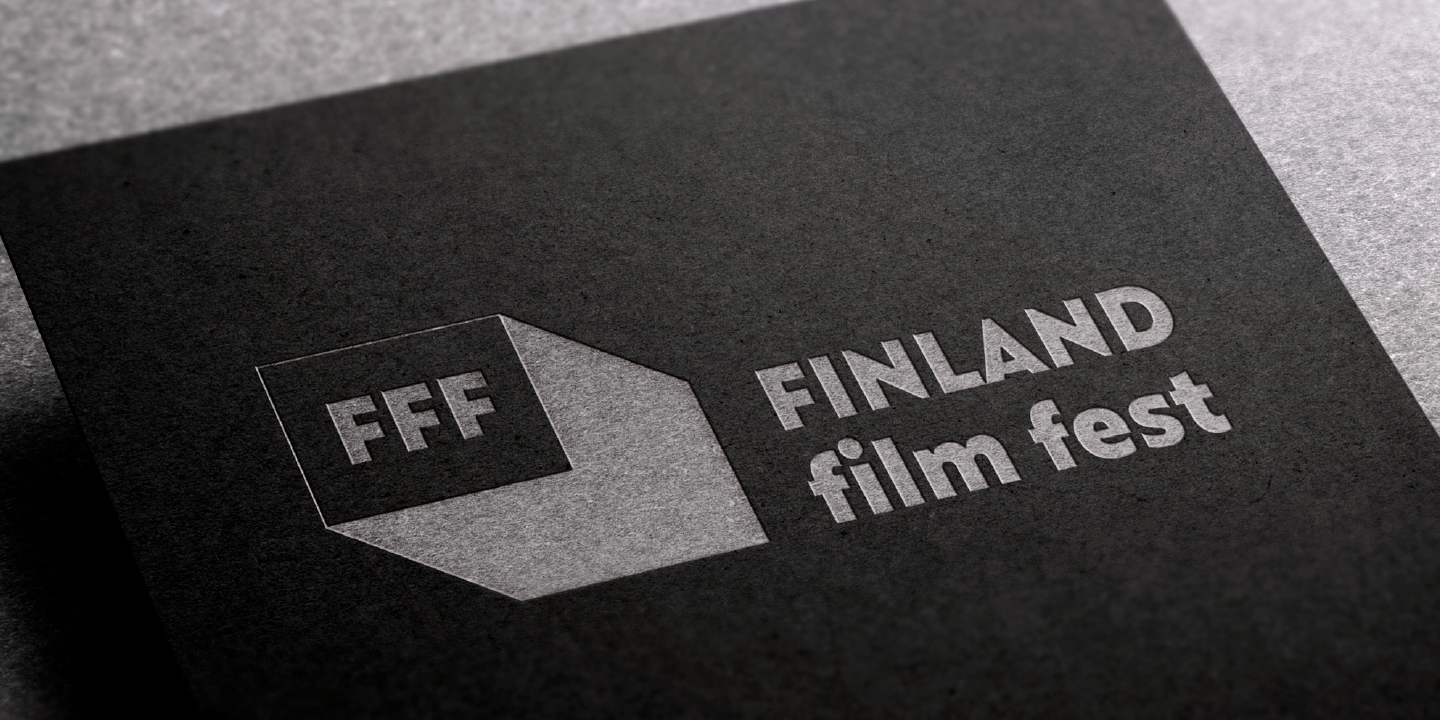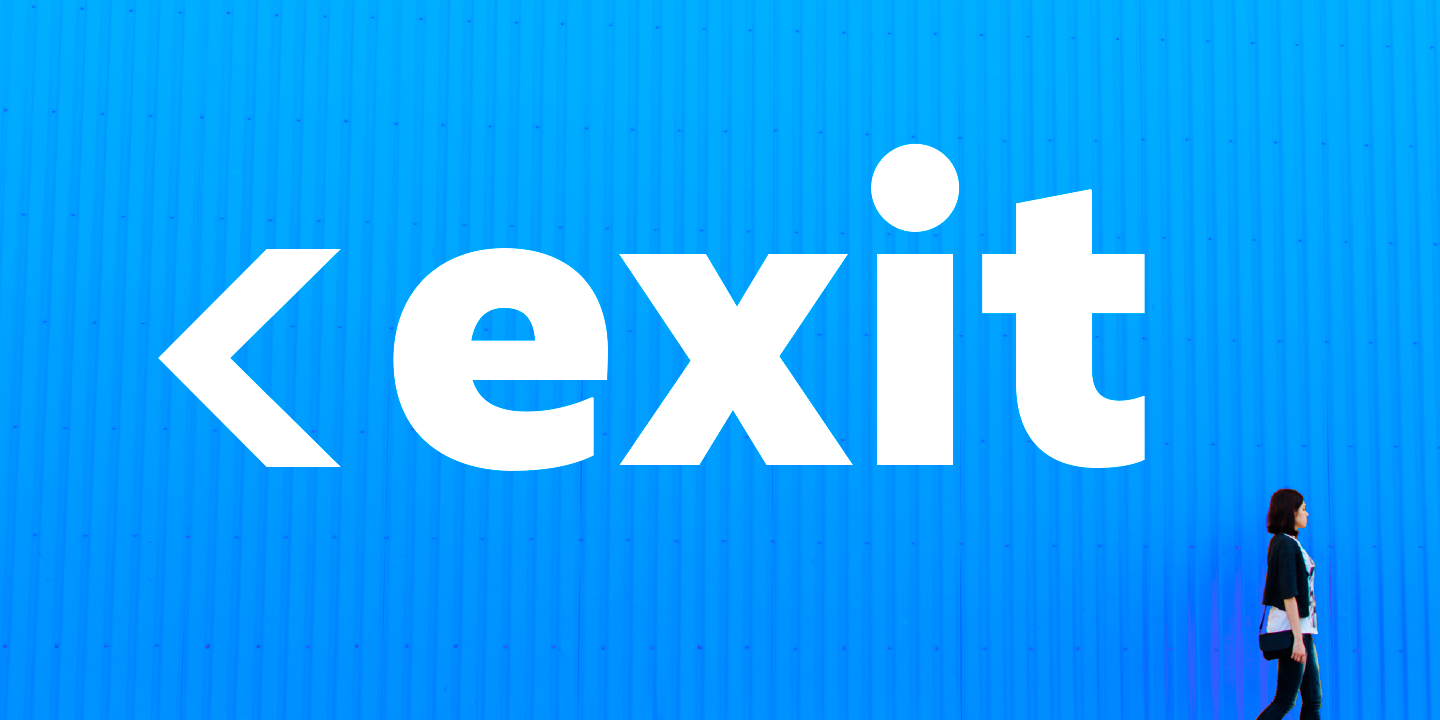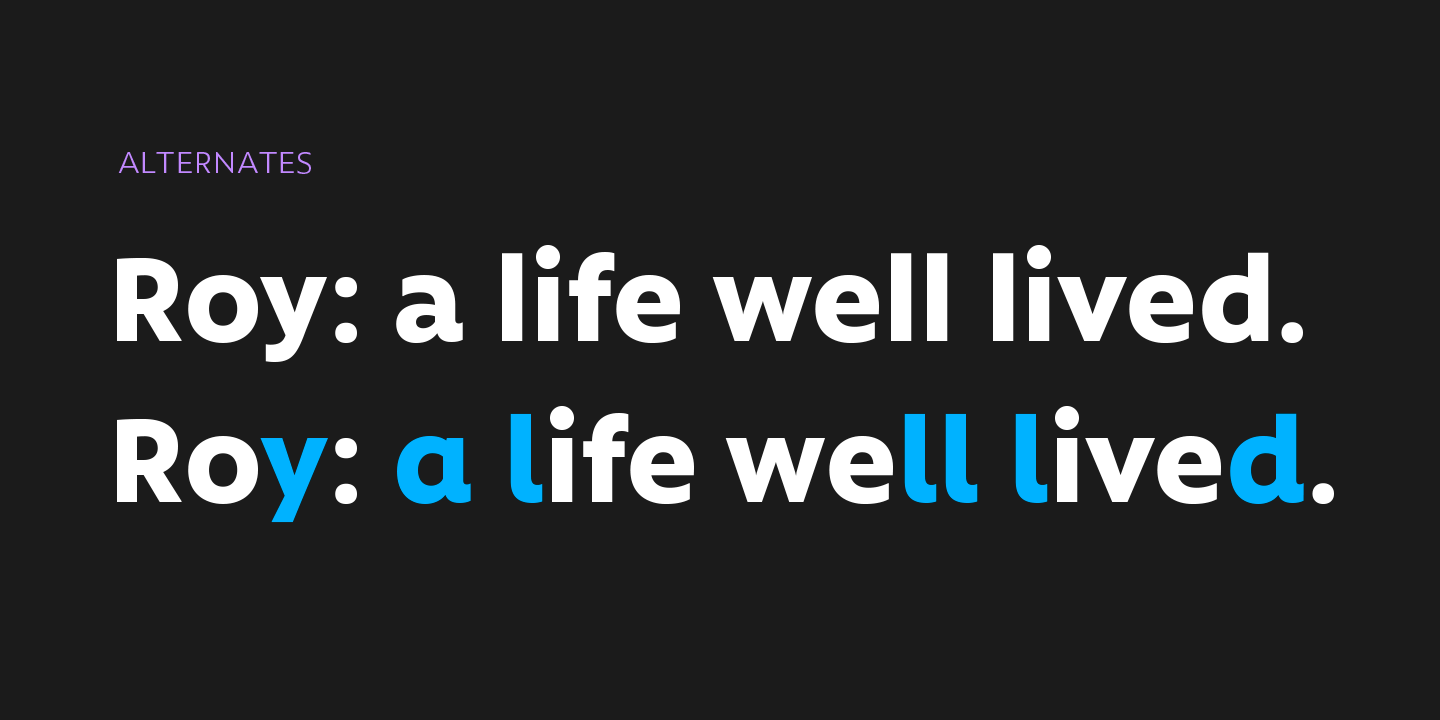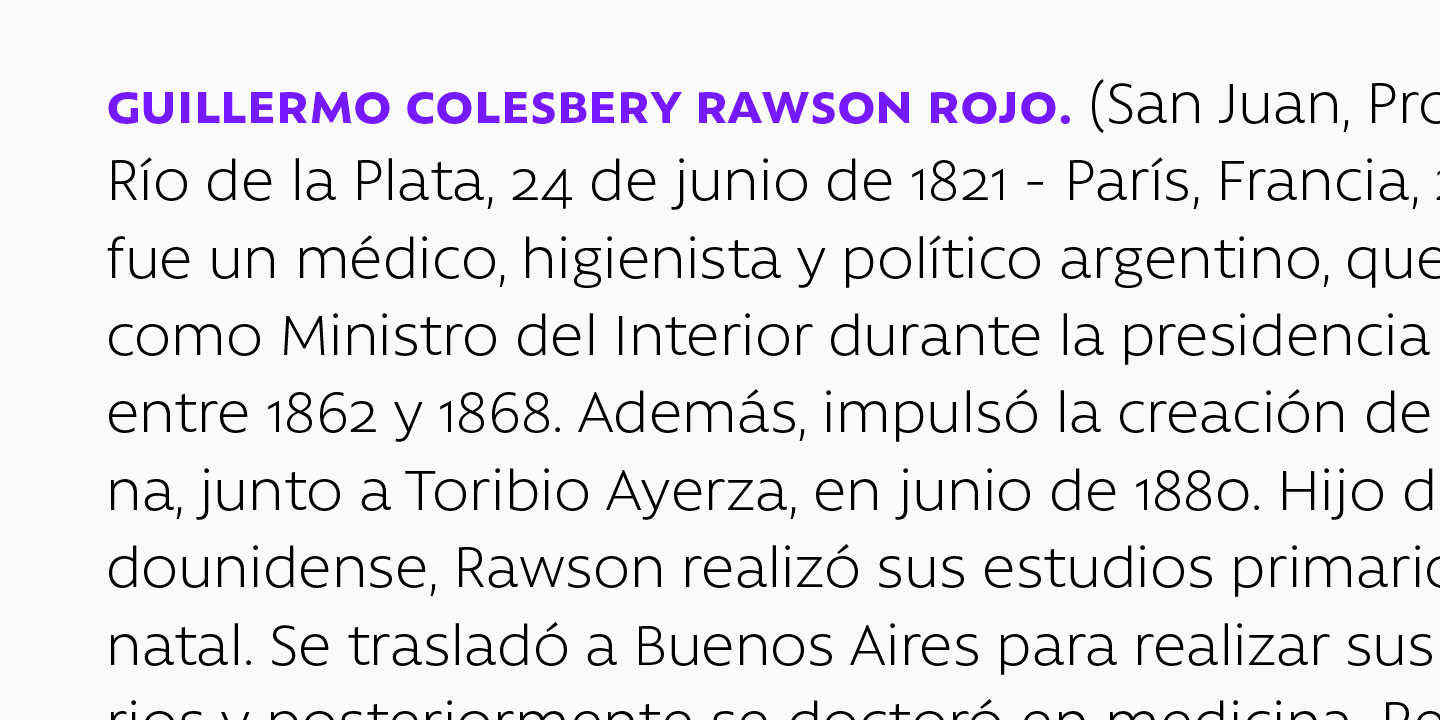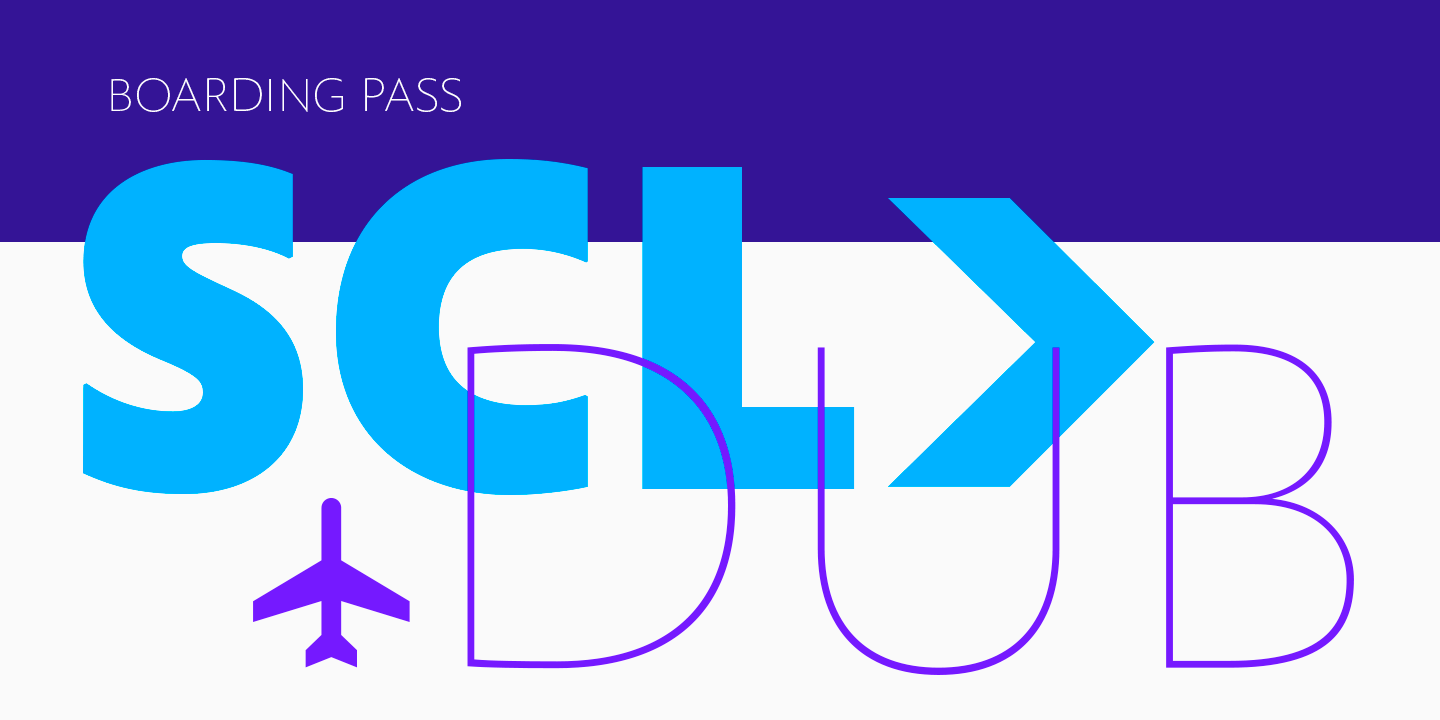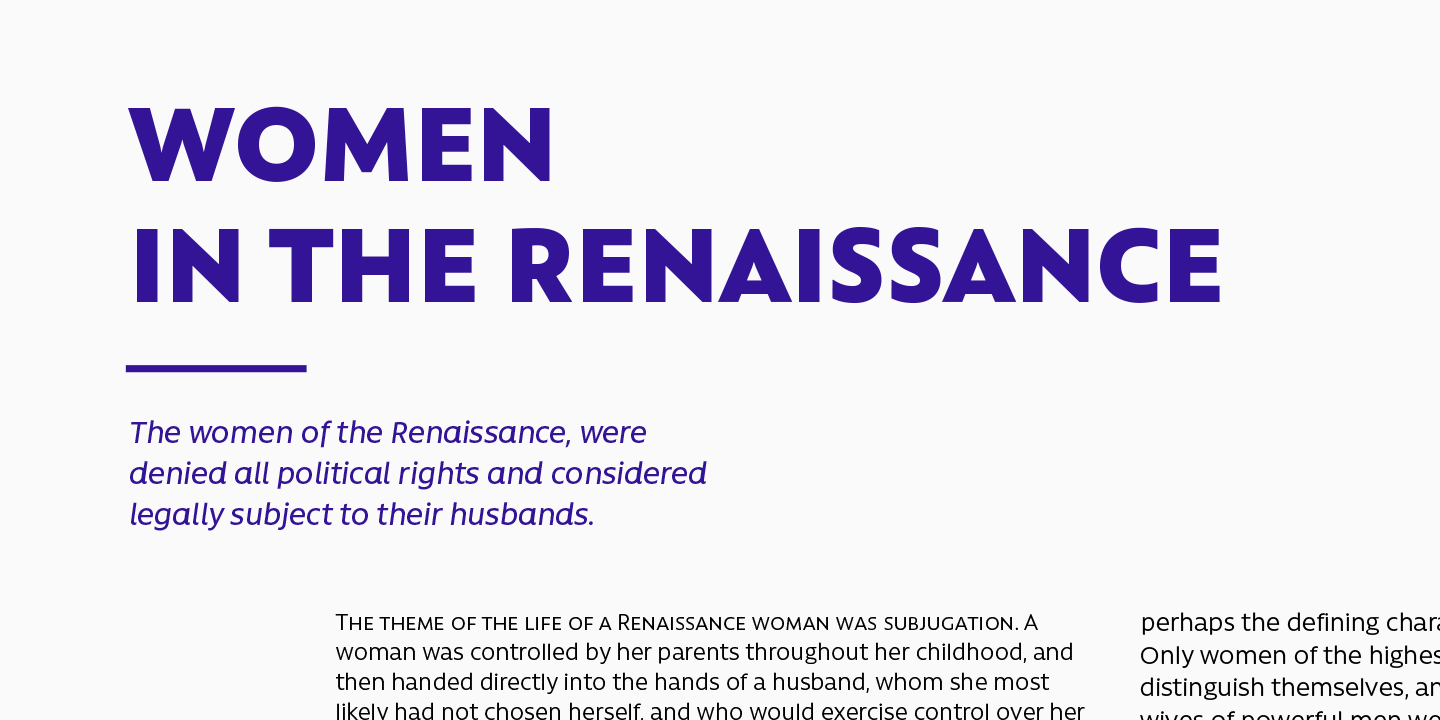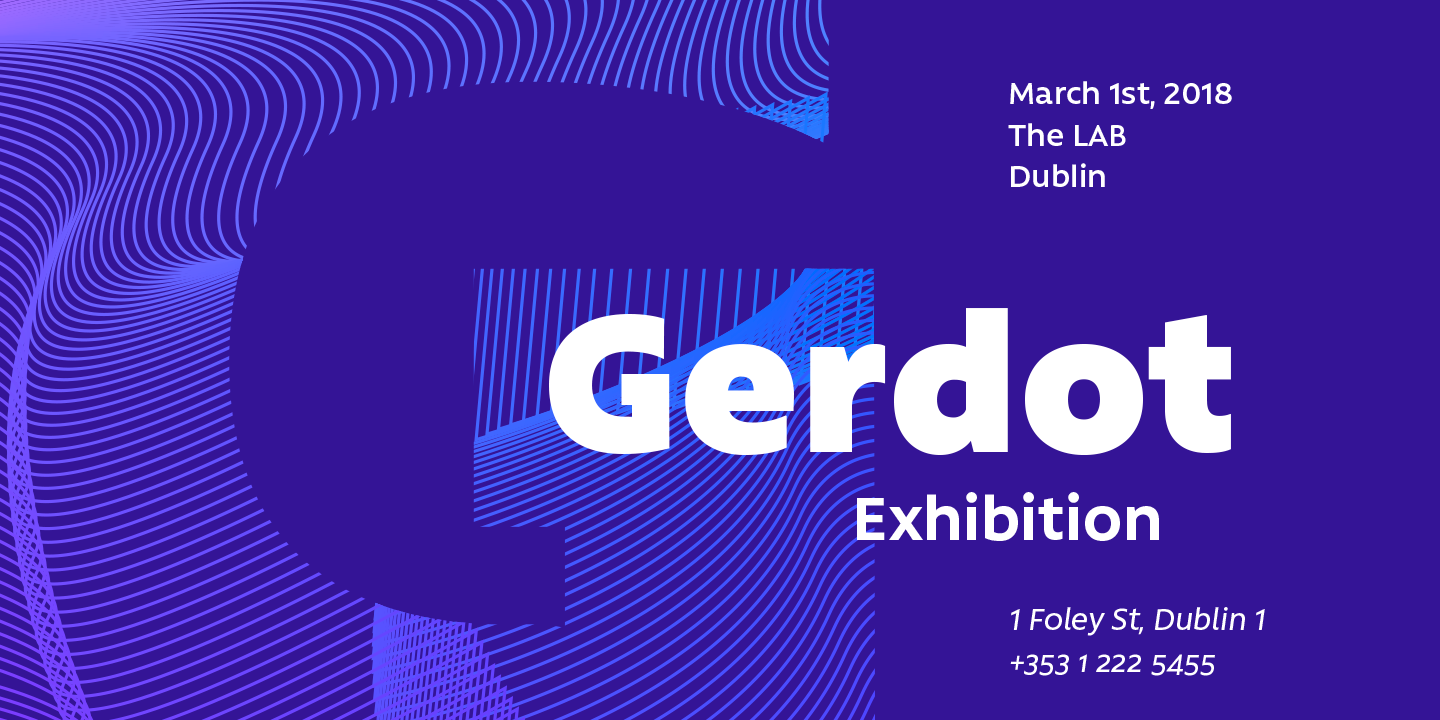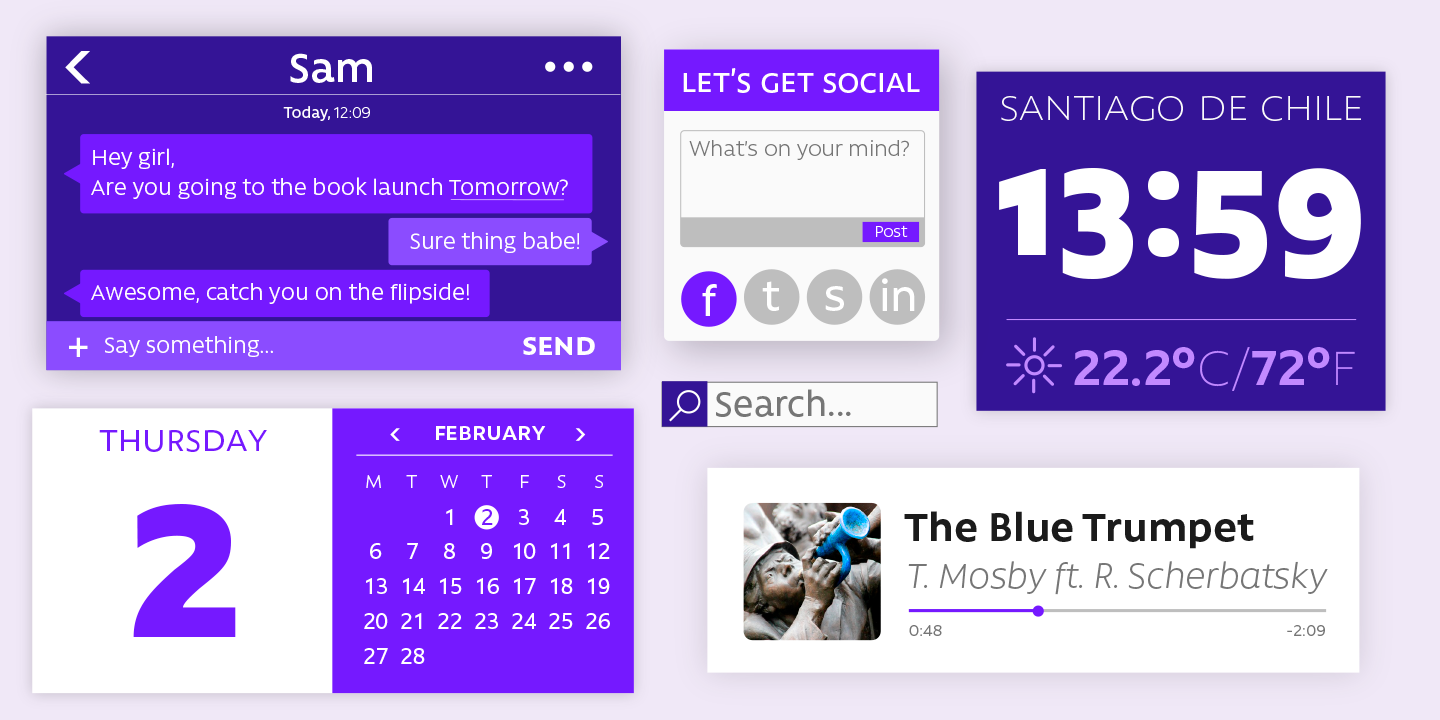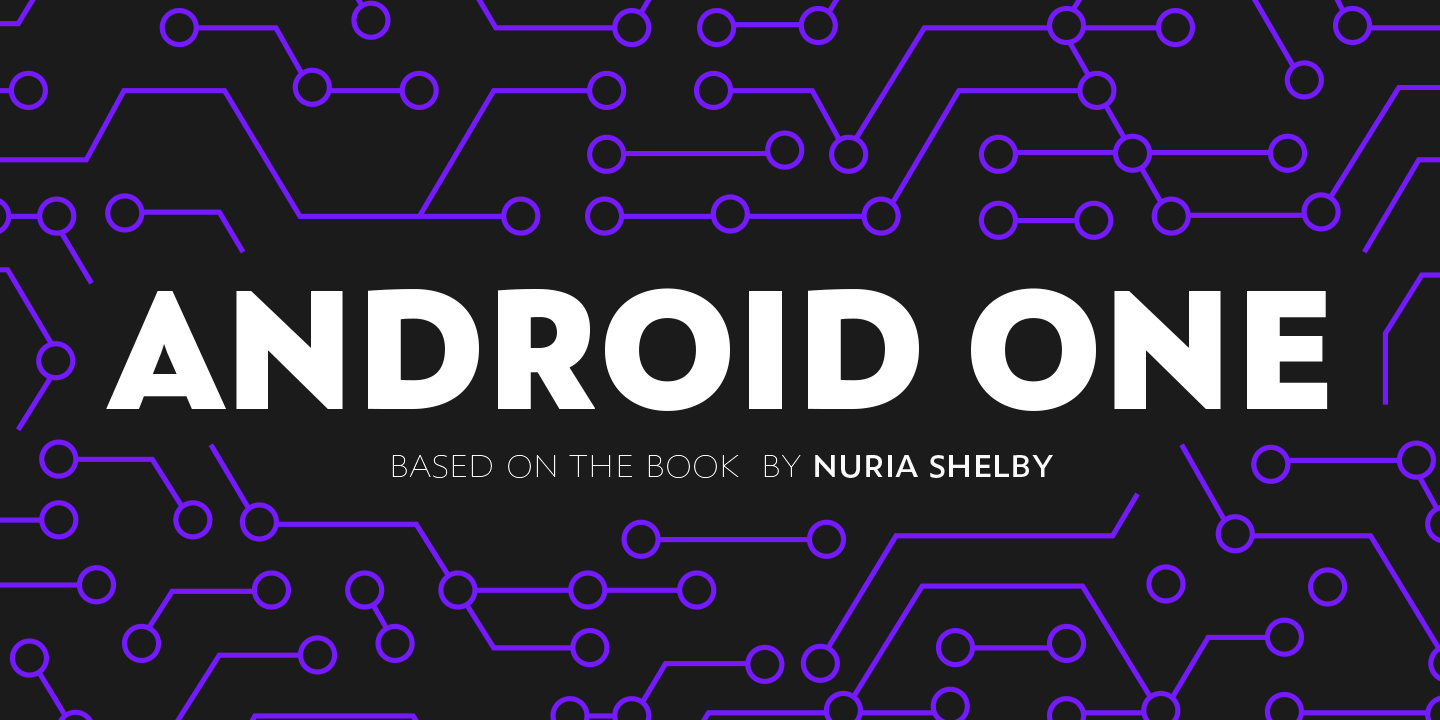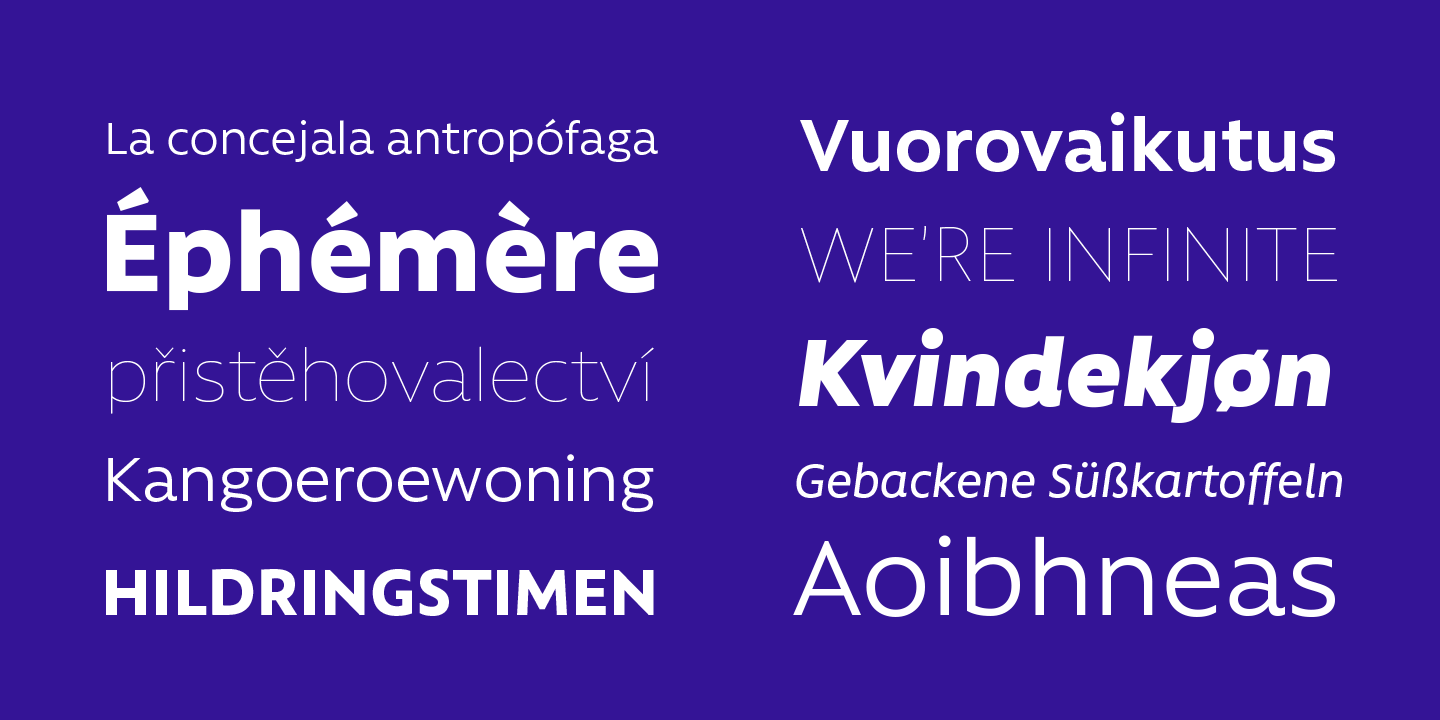
Rawson is inspired by early humanist sans-serif English typefaces. We have added a bit of Johnston, a bit of Gill and a lot of Latinotype to the font. Rawson is an elegant font—but definitely not a black tie one—with the strength of a geometric sans but as friendly as a humanist typeface. This mixture, though not capricious, gives the font a ‘classic’ personality and a modern look at the same time.
Rawson is a typeface with a large x-height, open counterforms and classical ductus. The font is well-suited for branding, signage, packaging and short text.
Rawson has a 778-character set that supports 219 languages and includes alternative characters, discretionary ligatures, small caps, a variety of figures and fractions—a wide range of typographic tools to meet different design needs.
Old-style Digits, Ligatures, Discretionary Ligatures, Small Caps, Alternates, Contextual Alternates, Fractions, Superscript, Subscript